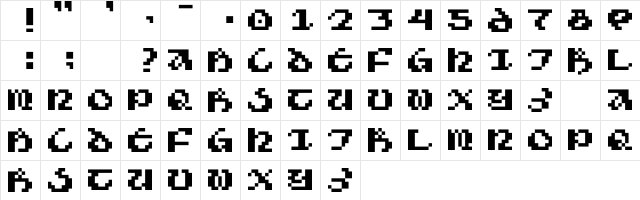
Ho8Bit Regular
| Designer | endersmith |
Design Context for Ho8Bit Typeface
Ho8Bit is a composed and adaptable typeface that performs quietly and consistently across a wide range of design contexts.